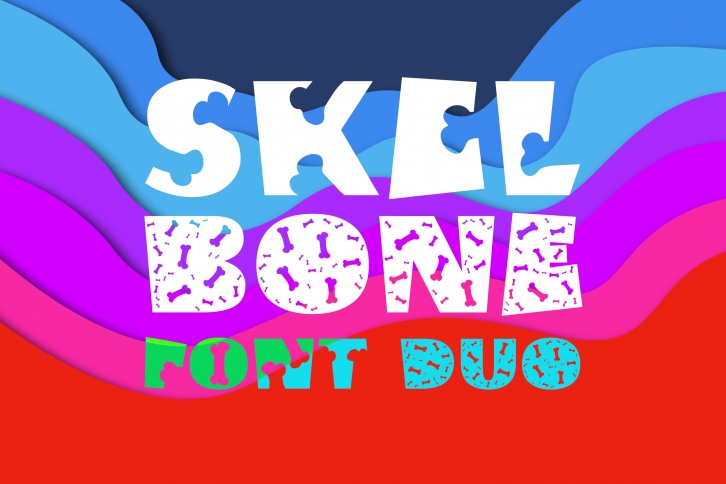
Skel Bone Duo is an incredibly cool and quirky decorative font. Whether you use it for cartoon-related designs, children’s games, or just any creation that requires a lovely touch, this font will be an amazing choice.